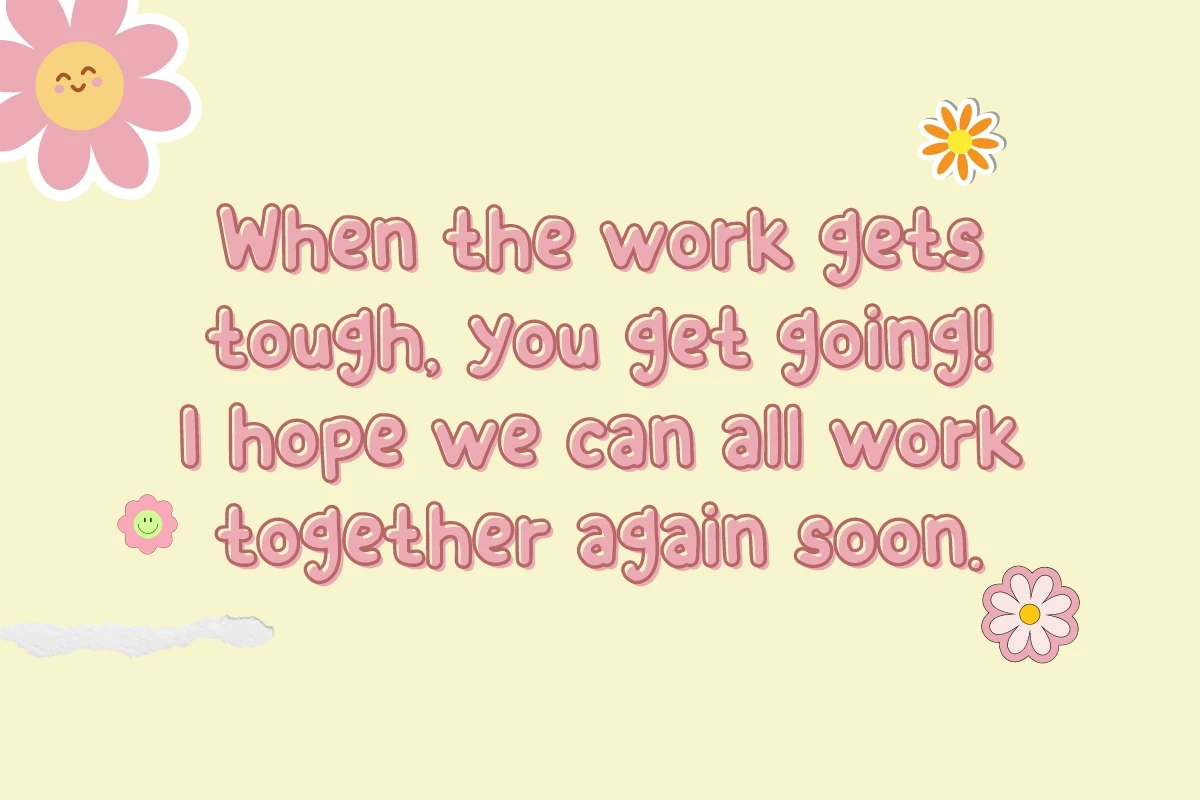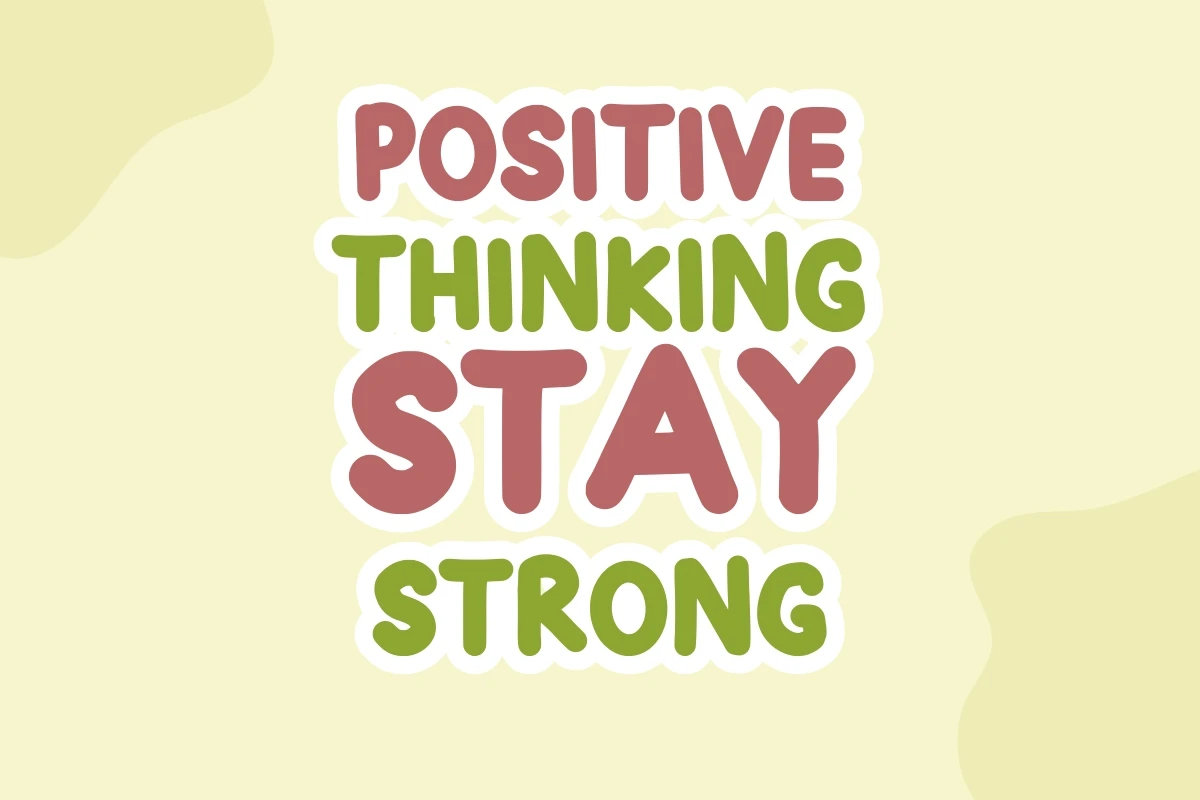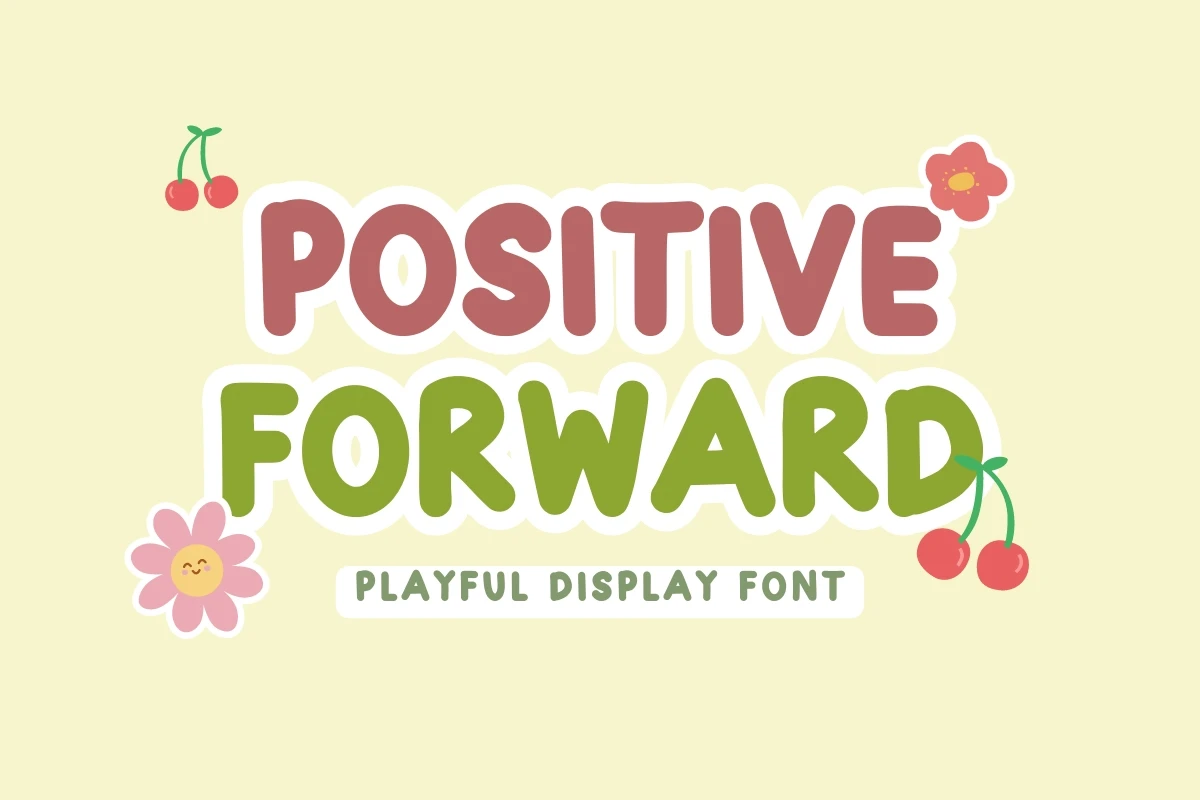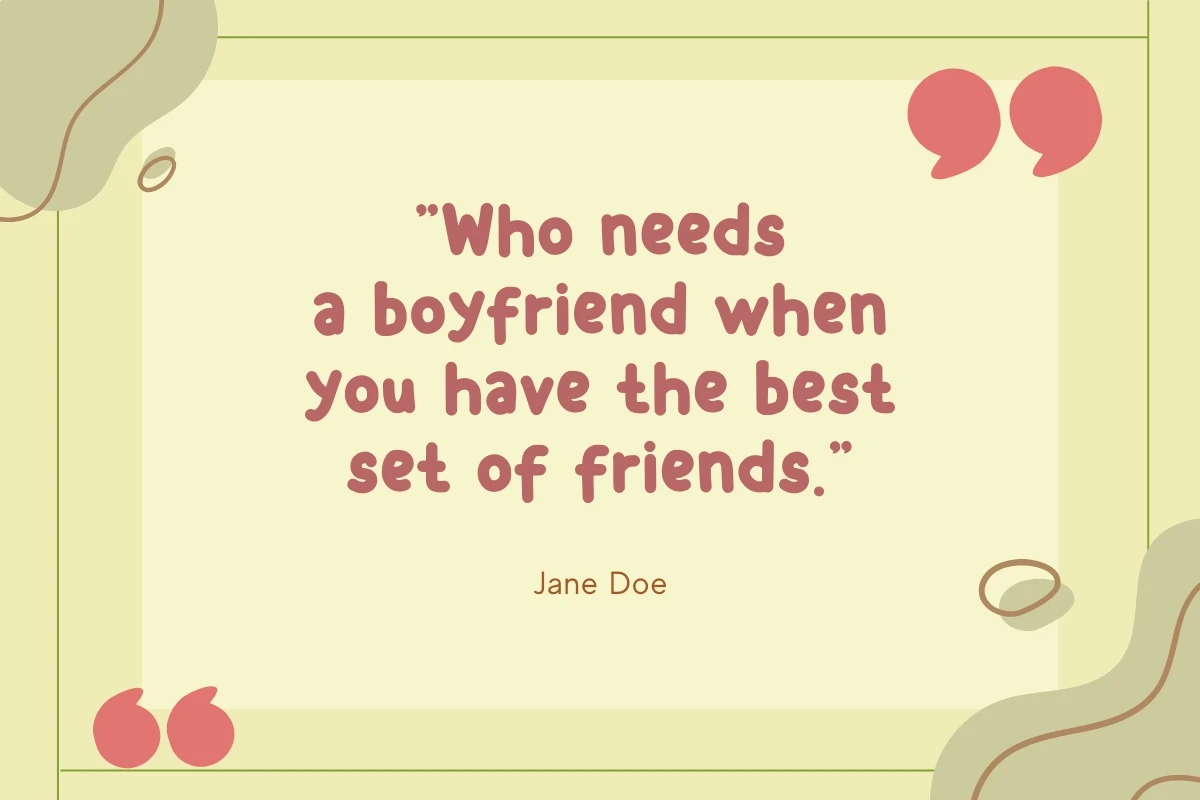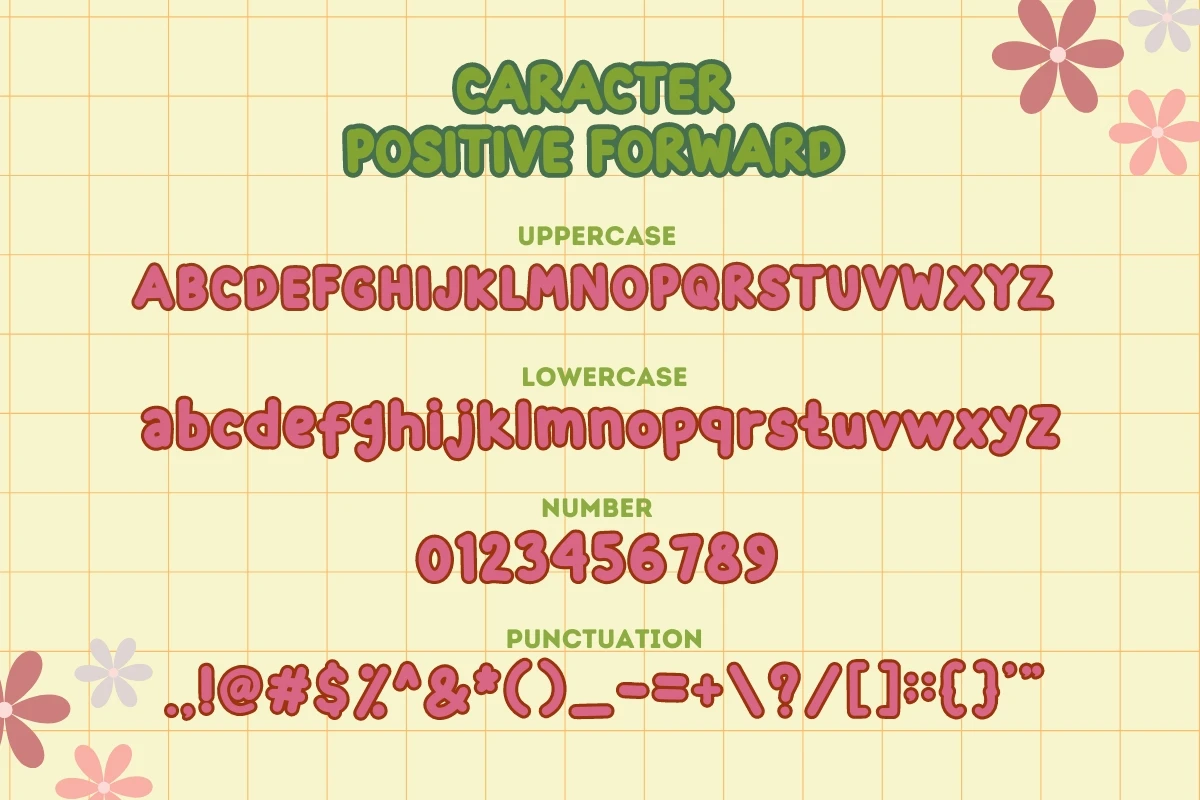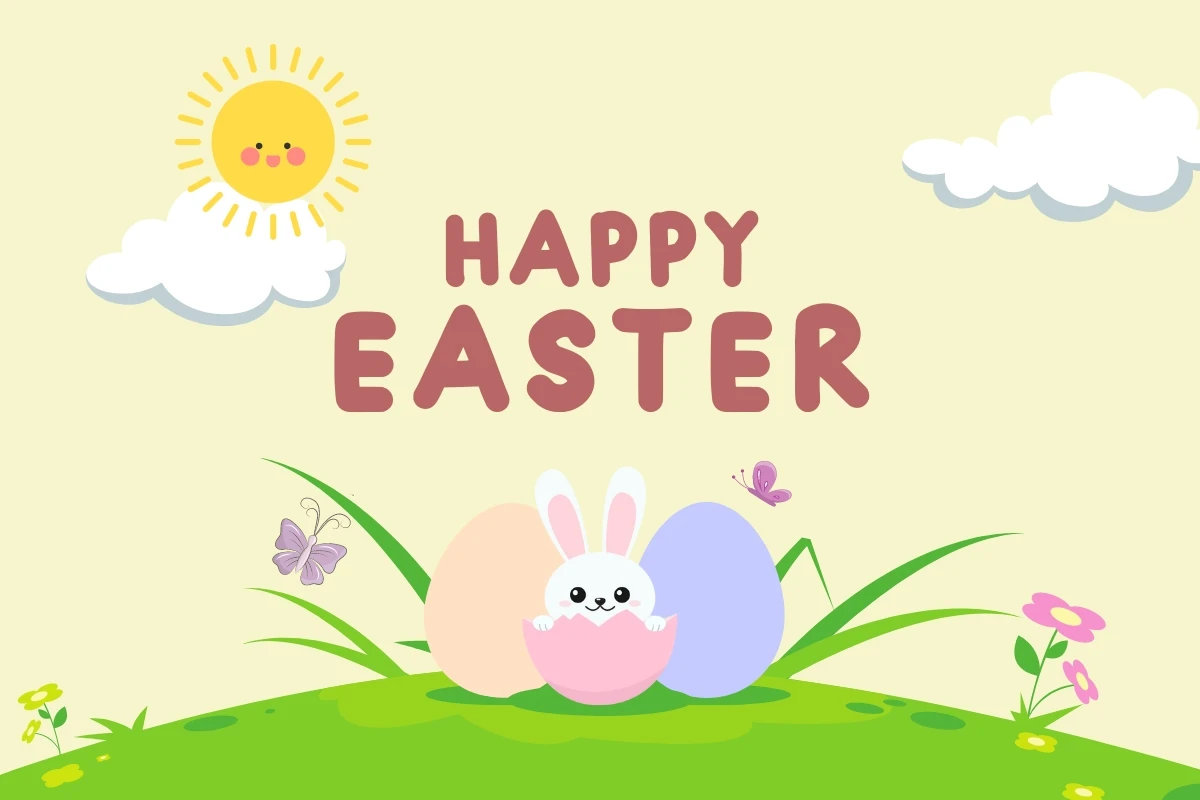
Positive Forward is a font with a look that exudes optimism with added touches of playfulness and joy. Get inspired by her unique and beautiful style and add it to your favorite designs!